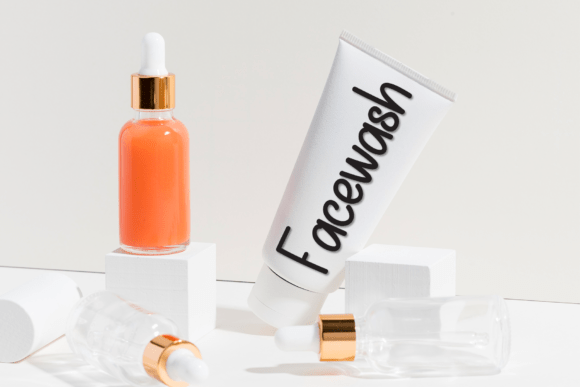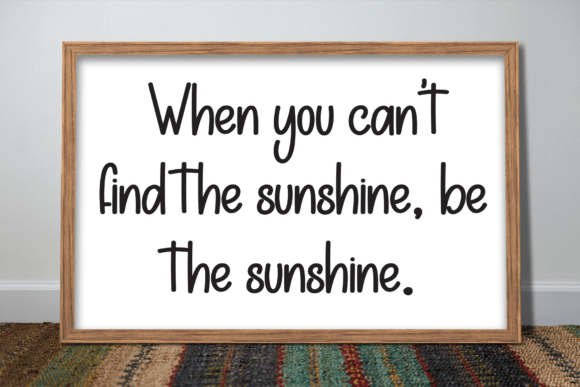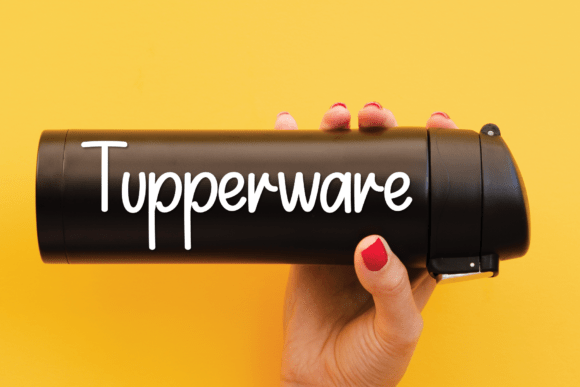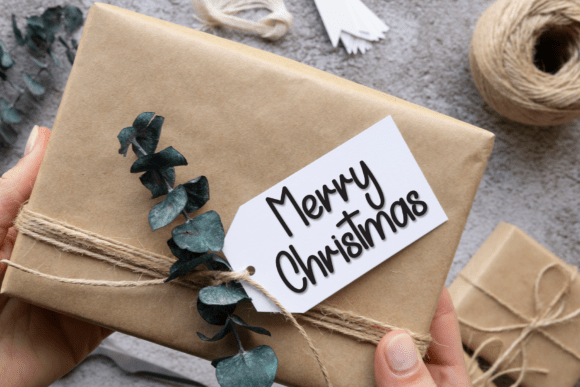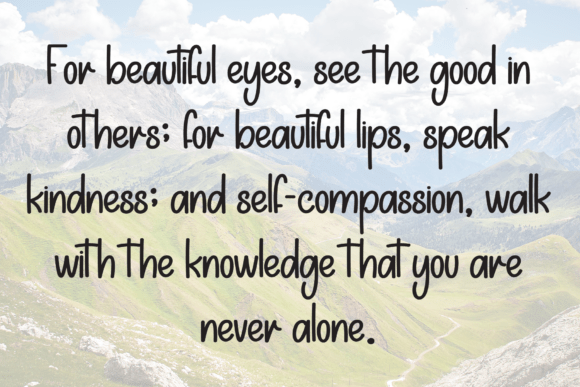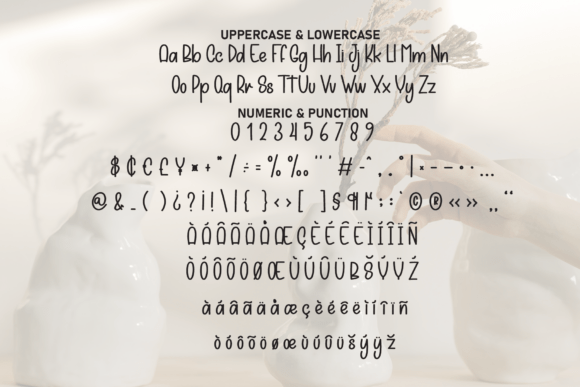
Introduction to Minimalist Handmade Font
Minimalist Handmade is a clean, modern script font that balances the personal touch of handwriting with a sleek, rounded aesthetic.
Its uniform stroke and approachable, simple curves give it a friendly yet professional feel This versatile font is perfect for casual branding, personalized stationery, blog headers, social media quotes, and any project that requires a warm, legible, and effortlessly modern script.
Key Features of Minimalist Handmade Font
Why Choose Minimalist Handmade Font?
Minimalist Handmade Font offers exceptional quality and versatility, making it a valuable addition to your design toolkit. Whether you’re creating for personal projects or commercial use, Minimalist Handmade Font delivers professional results.